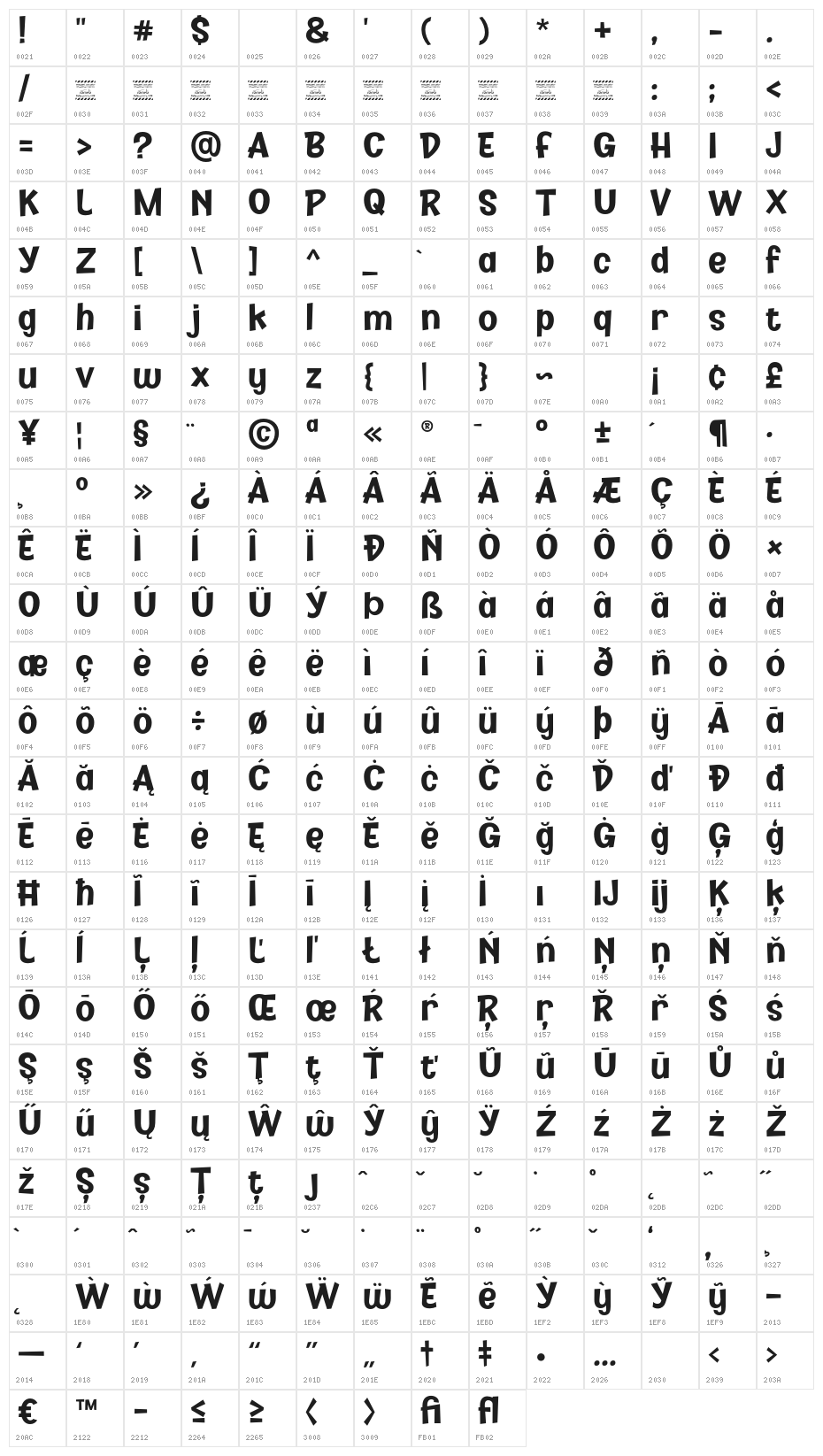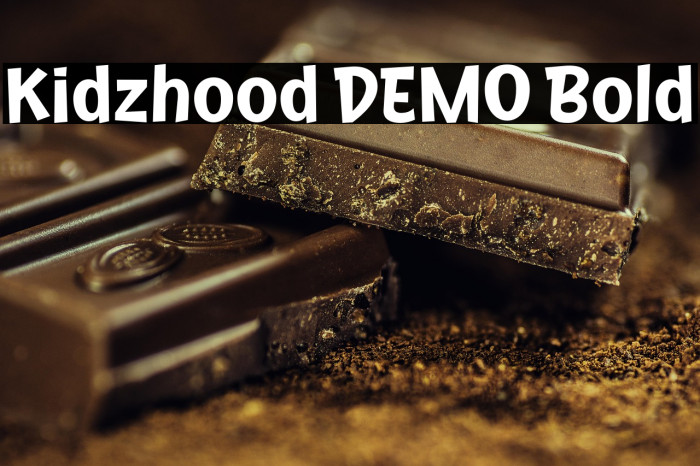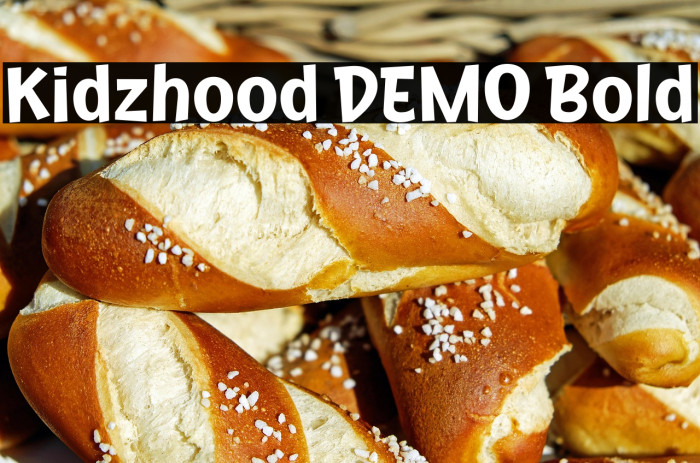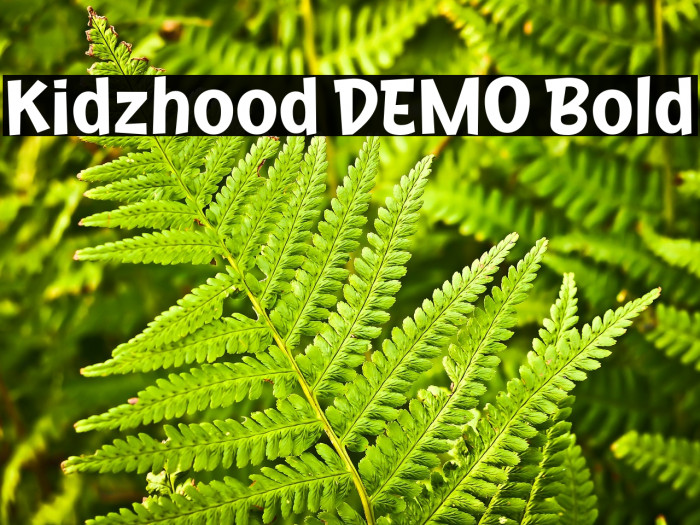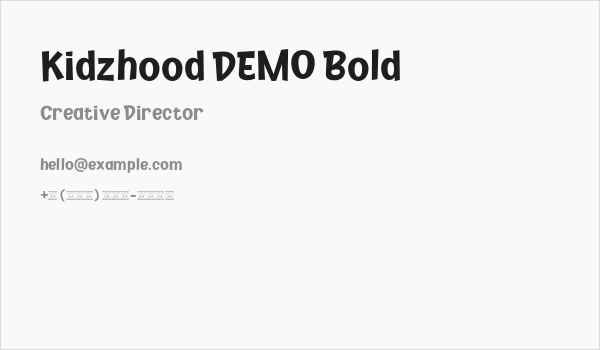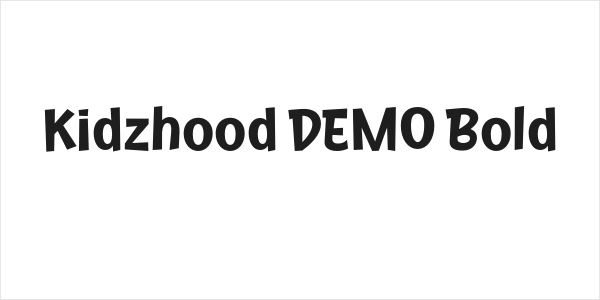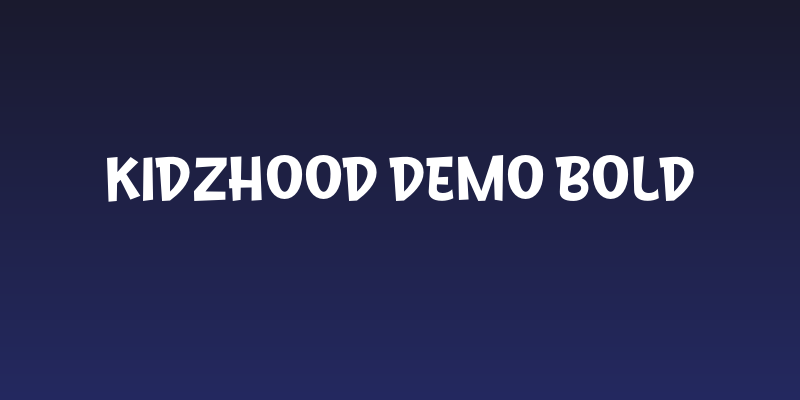
Kidzhood DEMO Bold Font
Kidzhood DEMO Bold Description
This playful and bold font features a whimsical and youthful design, characterized by its thick, rounded strokes and slightly irregular shapes. The letters have a hand-drawn feel, with a dynamic and energetic appearance that captures attention. The uppercase and lowercase letters maintain a consistent style, with a slightly exaggerated width that adds to the font's playful nature. The numbers and special characters are equally bold and maintain the same lively aesthetic, making the font suitable for creative and fun projects.
| Proposed Projects | Ideal for children's books, playful branding, party invitations, and educational materials. |